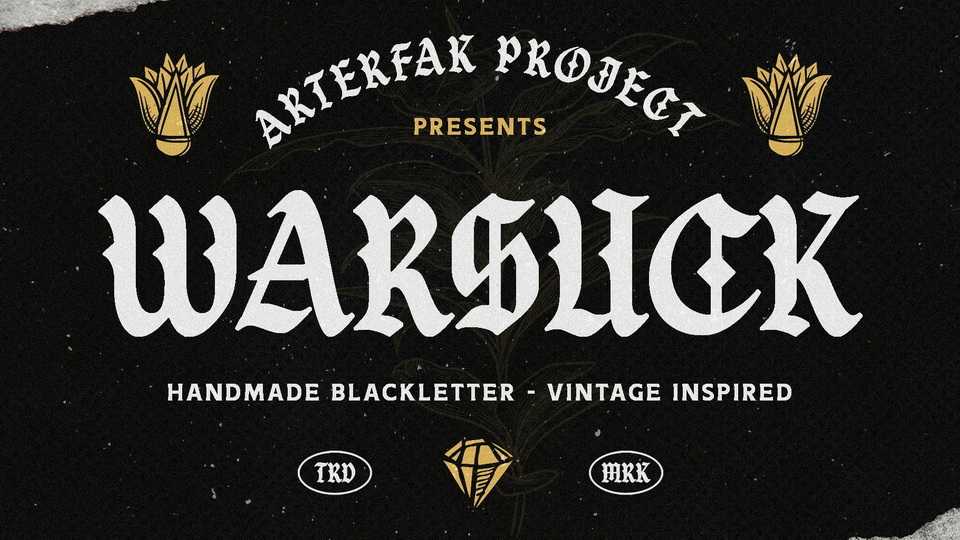
Download Warsuck font, a hand-drawn typeface inspired by the underground culture and a blackletter type. Warsuck is strong, vintage, and aesthetic blackletter font with extra alternates characters.